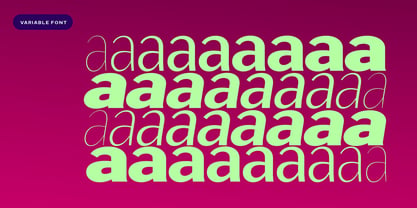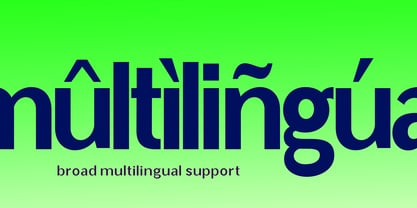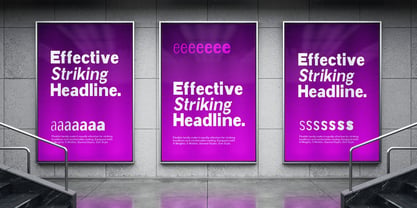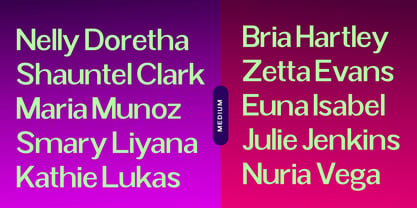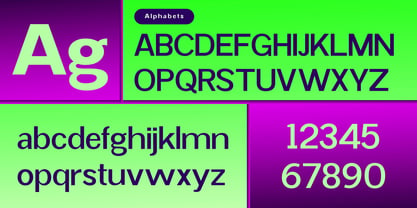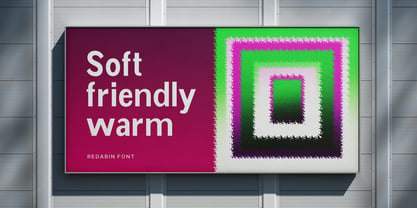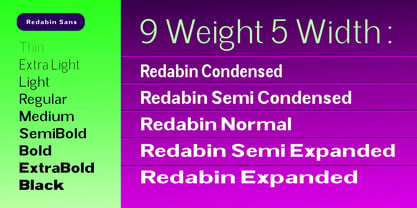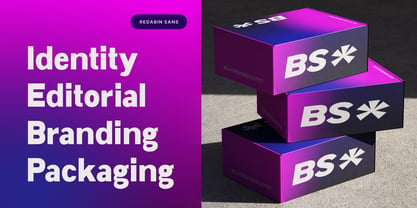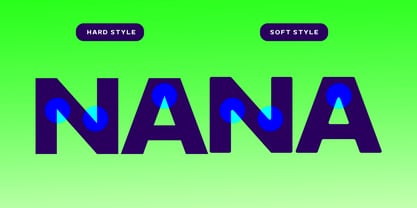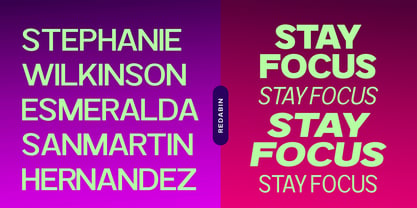
Redabin
by Ajibatype
The Redabin Font Family was designed by Jam Hur and published by Ajibatype. Redabin contains 181 styles and family package options. More about this family
Redabin is a modern sans serif designed for brands that value both personality and performance. Its approachable character and refined proportions create striking impact in display sizes while remaining exceptionally clear and comfortable for body text. With 9 weights, 5 widths, Slant styles, a dedicated Soft Style collection, extensive multilingual support, and a fully variable font, Redabin provides a complete typographic system for branding, editorial, packaging, digital interfaces, and everything in between.